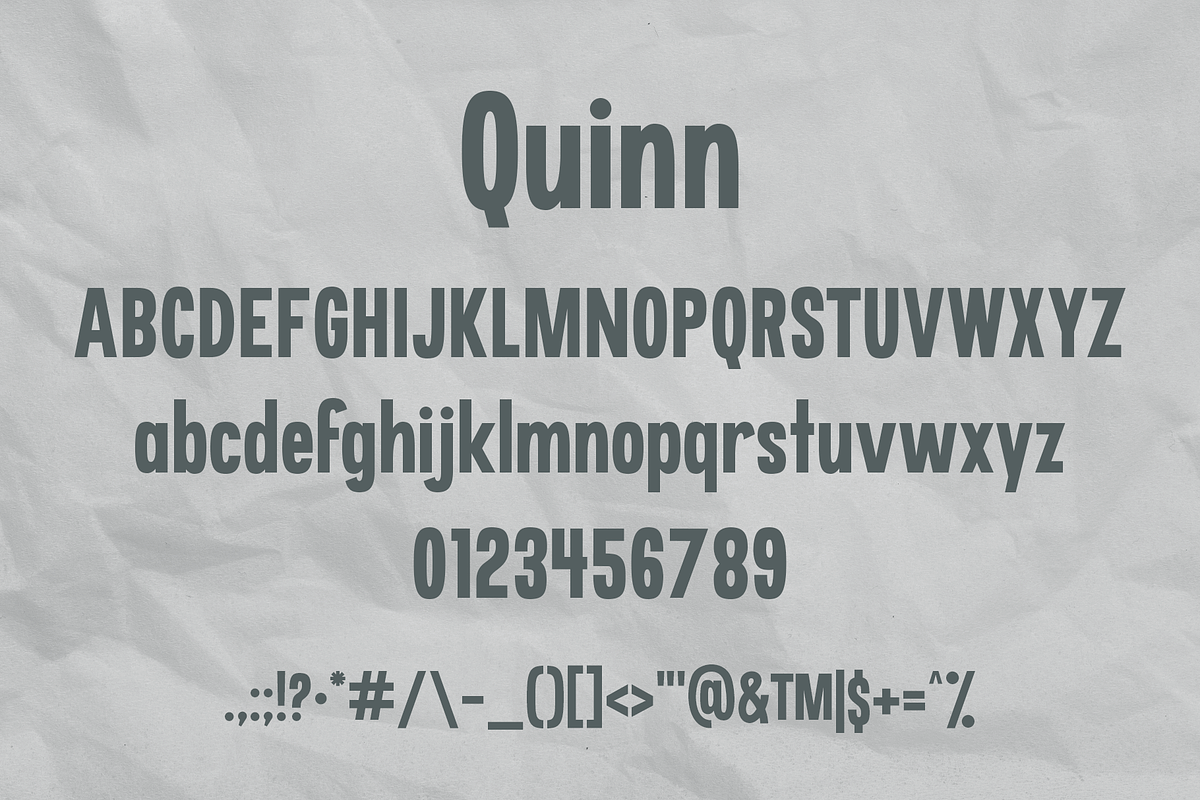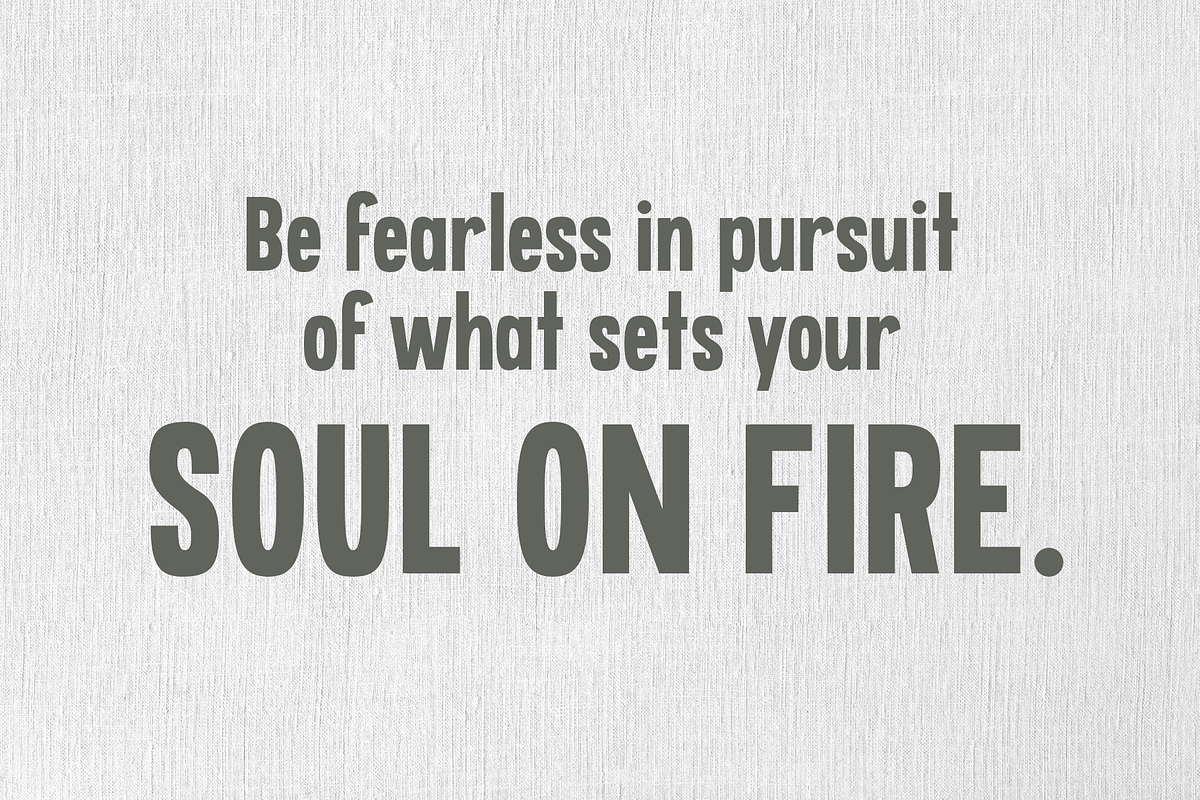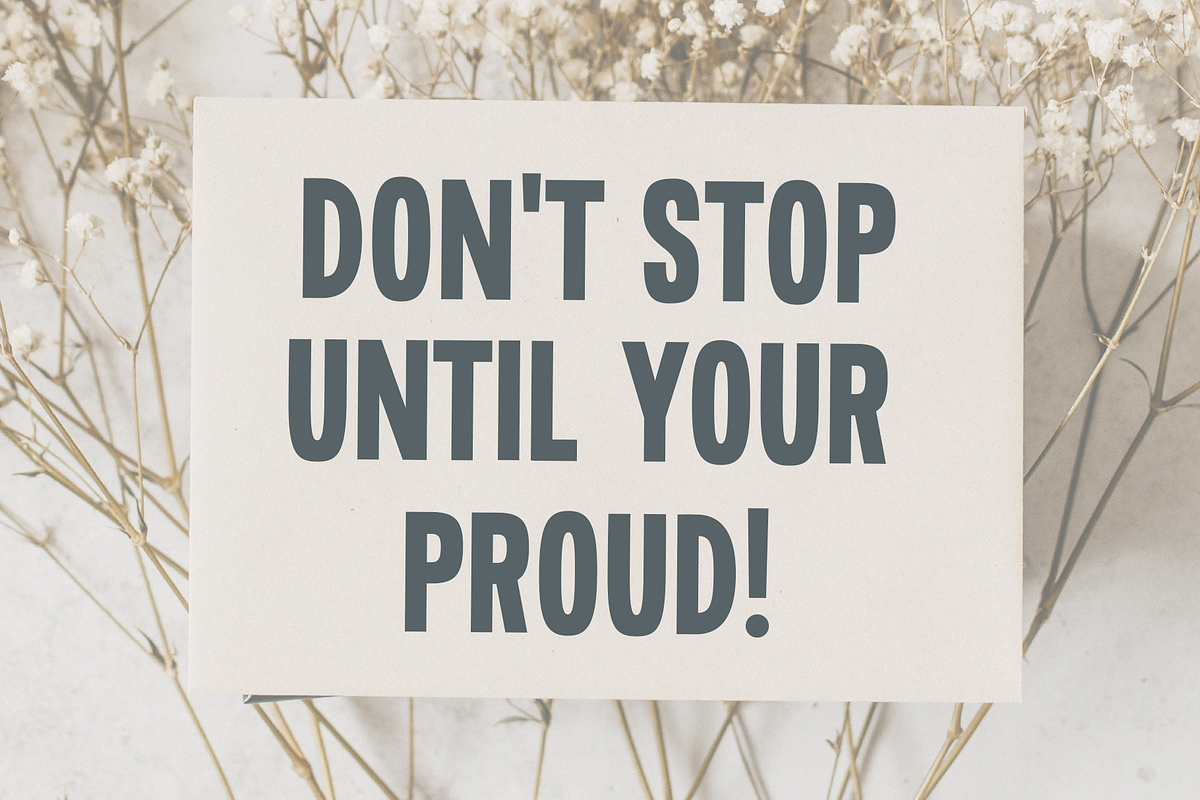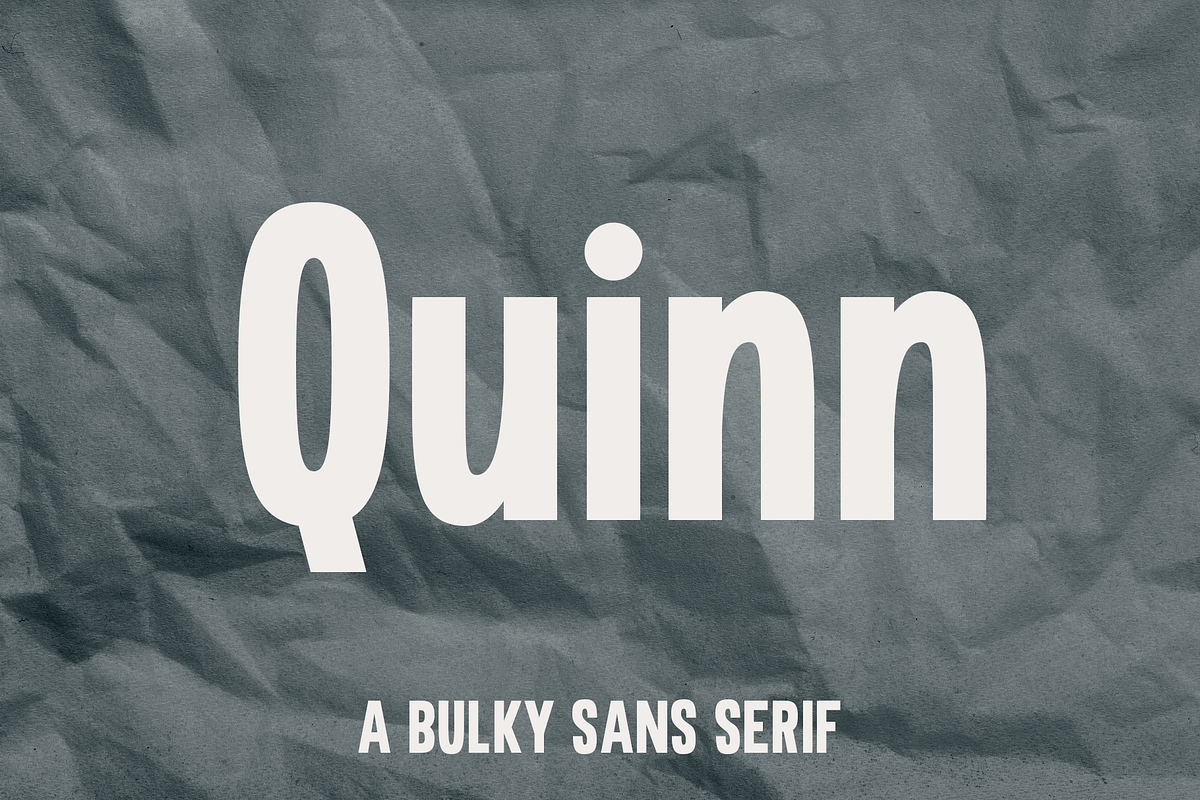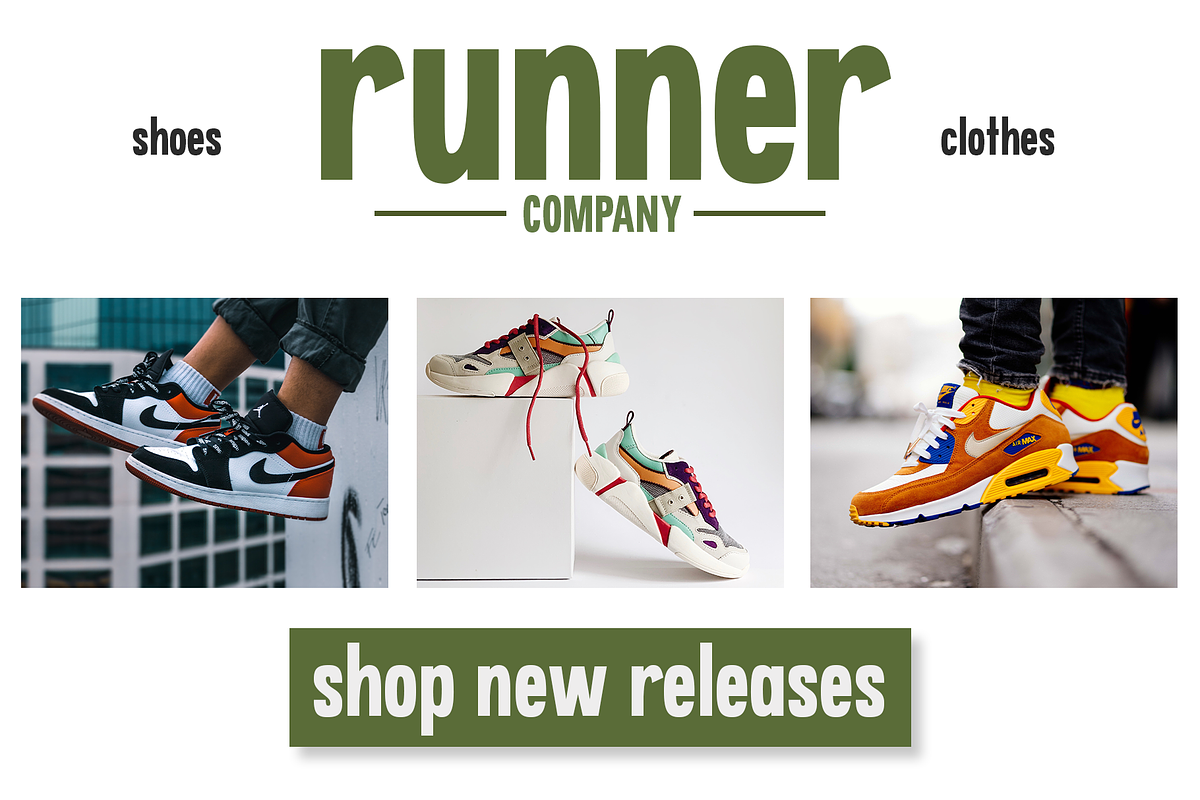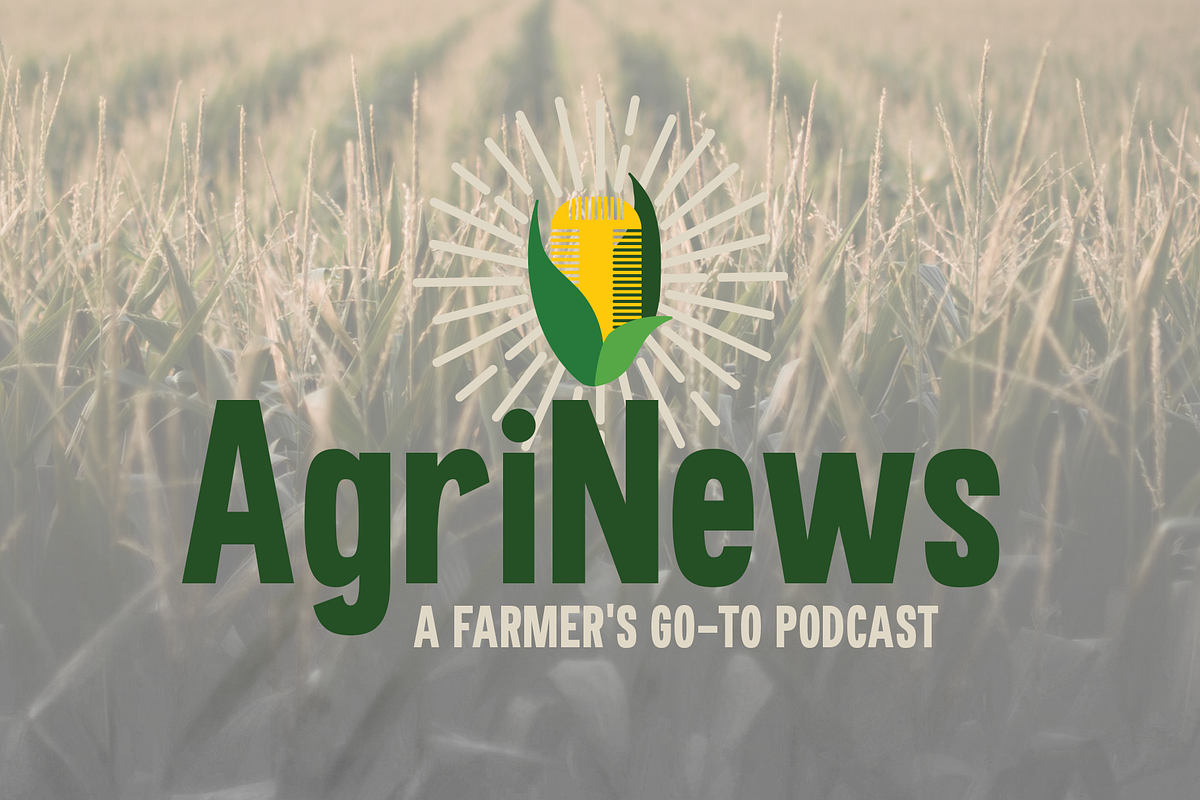
Quinn | A Bulky Sans Serif
Quinn is a bulky, and playful, sans serif font.
This font includes both an uppercase and lowercase alphabet, along with extended punctuation.
The great part about this beautiful sans serif font is it can be used for so many different purposes! Use Quinn for quotes, graphics, t-shirt designs, stationery, or even your business branding. I think this font would make beautiful logos, websites, and headings that catch your customers attention.
This typeface is unique because any designer can create stunning artwork with this bulky font, even if they do not have a lot of experience using type features in design programs.